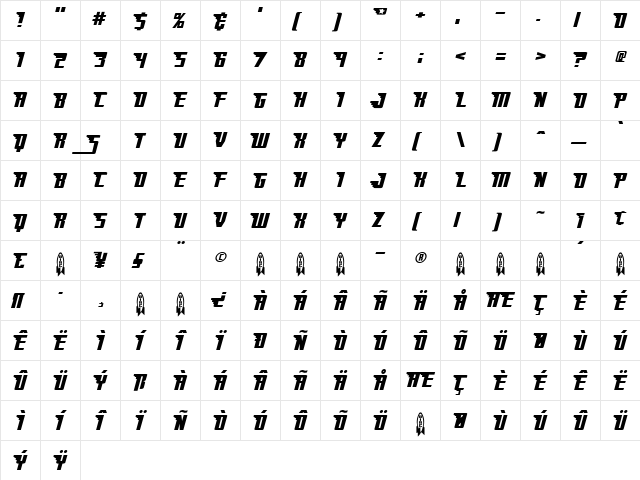
Rocketship Regular
Design Context for Rocketship Typeface
Rocketship is a composed and adaptable typeface that performs quietly and consistently across a wide range of design contexts.